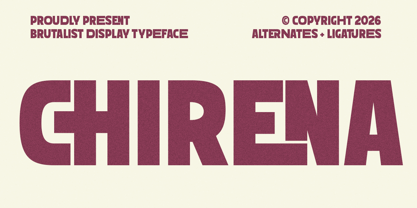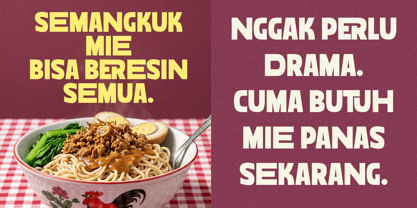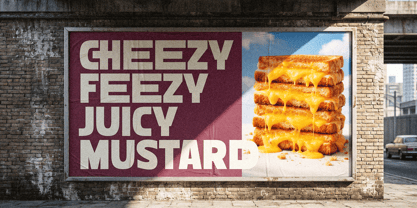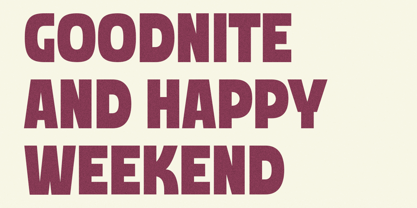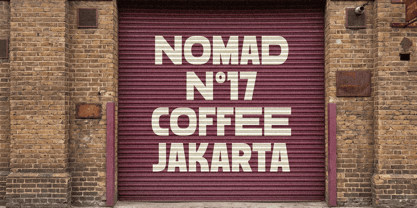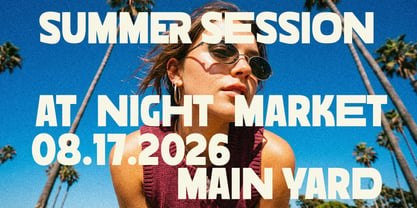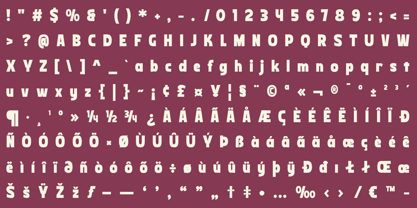
Cherina
The Cherina Font Family was designed by Zaki Muhammad and published by madjack.font. Cherina contains 2 styles and family package options. More about this family
Introducing Chirena, a clean, minimalist, modern display font with a modern geometric style that has a distinctive futuristic and experimental touch. This font features sharp, angular letterforms combined with smooth curves, creating a dynamic balance between rigidity and fluidity.
Chirena is a sleek and versatile sans serif, designed and perfect for logos, product packaging, titles, website headers, posters, editorials, magazines, luxury packaging, sophisticated headlines, fashion, beauty, and premium branding.